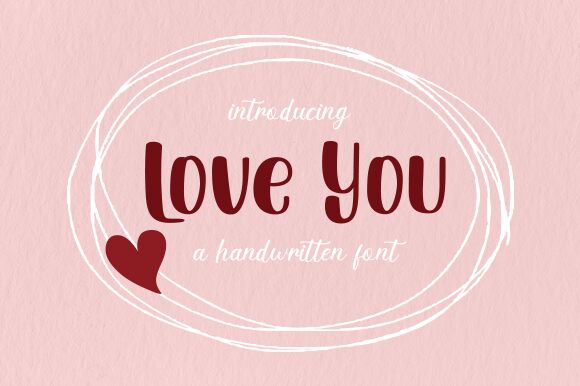
Love You
Love You is a charming and quirky font designed by Graphix Line Studio. With its bold and condensed typeface, this cute display font is perfect for creating eye-catching headlines, titles, and logos. Its playful curves and unique style make it ideal for fashion brands, beauty blogs, greeting cards, invitations, and more. The Love You font adds a touch of whimsy to any project while remaining legible even in smaller sizes. This versatile typeface will surely capture the hearts of your audience with its delightful charm!